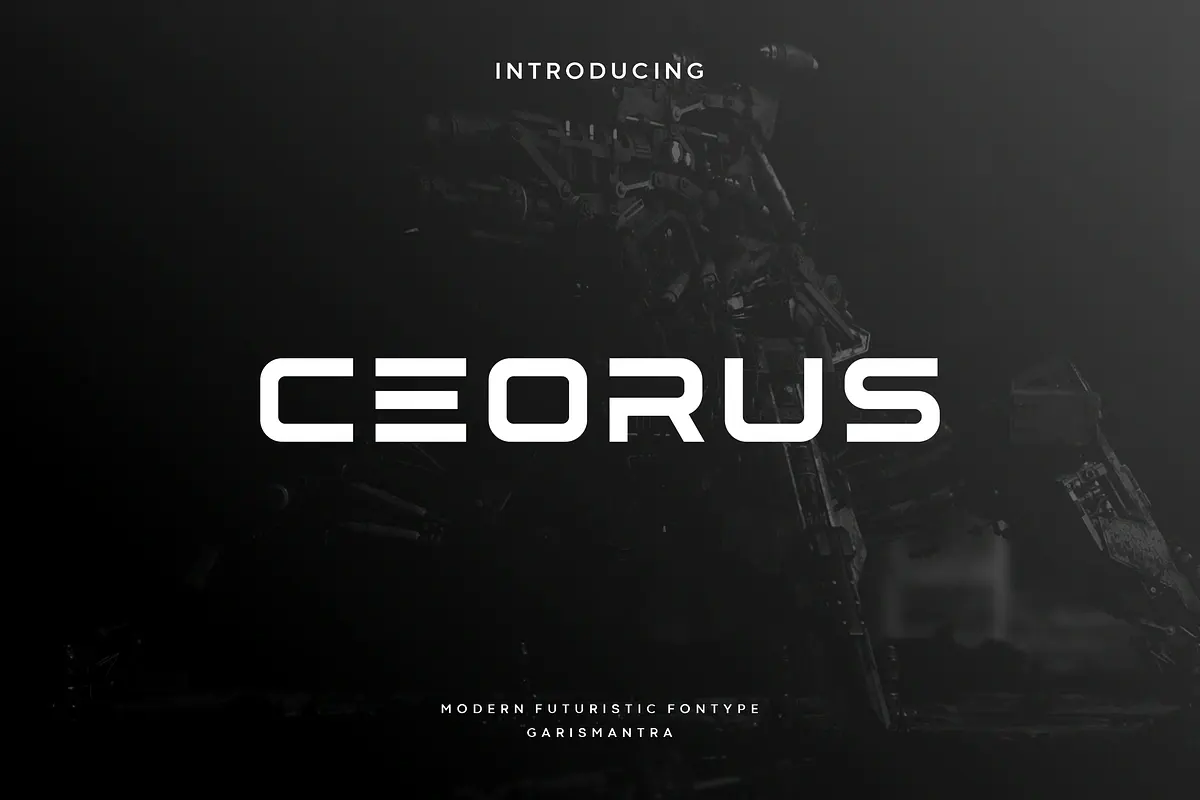
Make a strong, stylish impression with Ceorus Font Free Download — a clean and contemporary typeface built for modern branding, bold headlines, and eye-catching layouts. With its geometric precision and sleek design, Ceorus is the perfect choice for logos, tech startups, fashion editorials, and minimalist packaging.
This font pairs sharp lines with smooth curves to deliver a refined yet approachable feel. It includes uppercase and lowercase letters, numbers, punctuation, and multilingual support — making it a versatile tool for any creative professional.